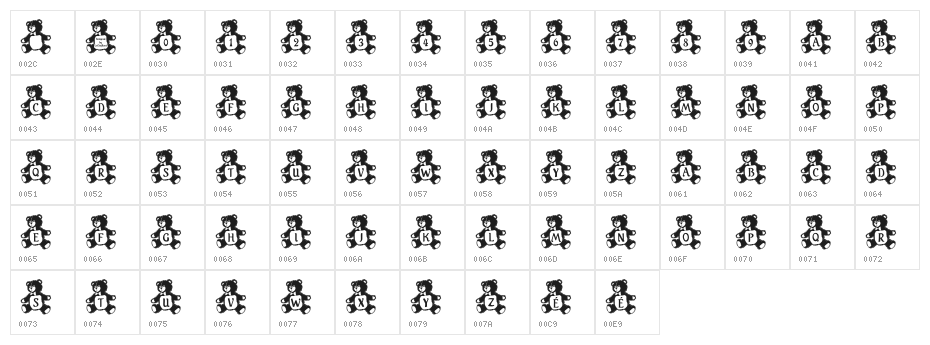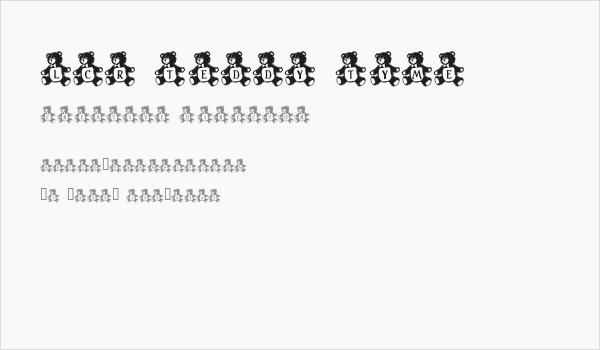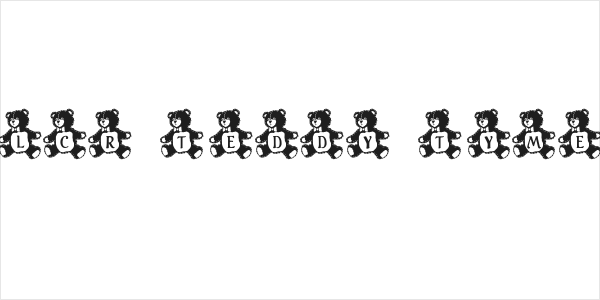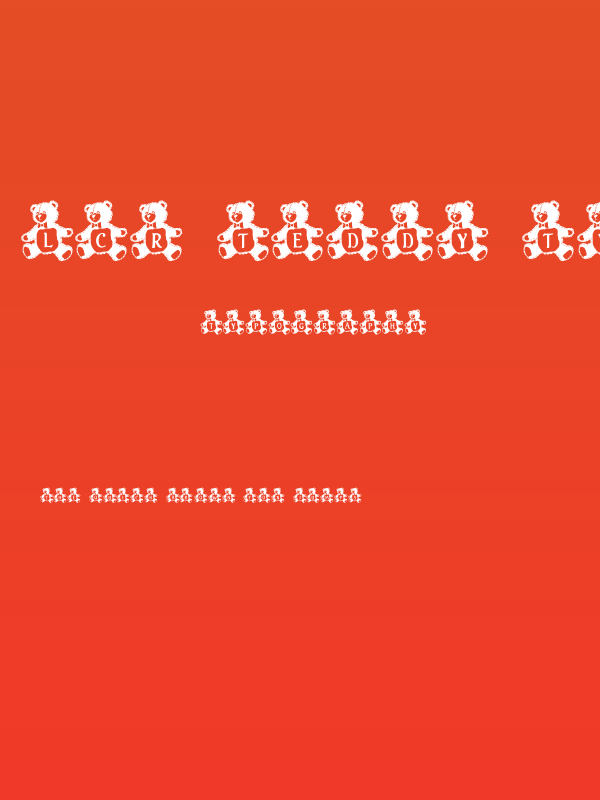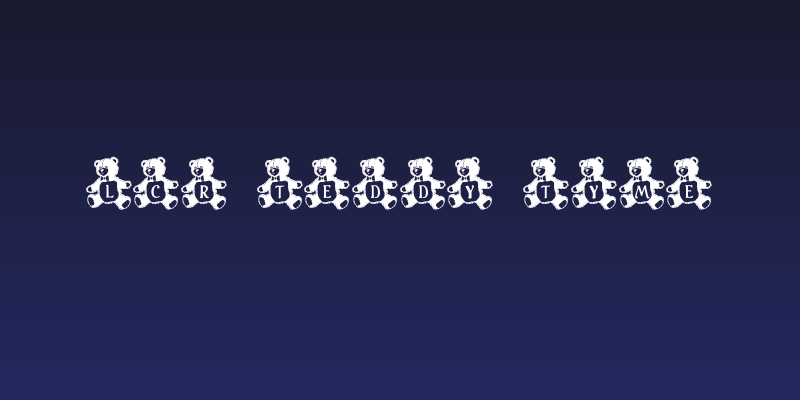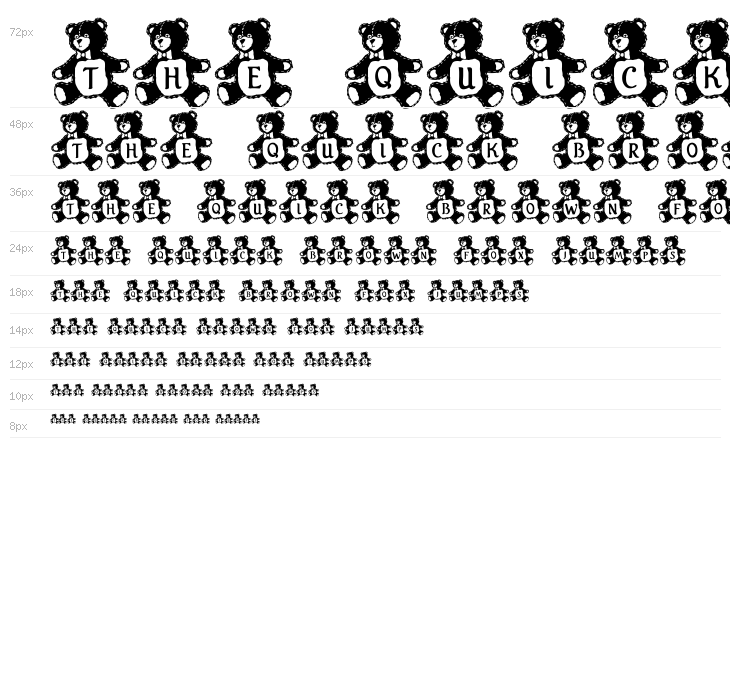
LCR Teddy Tyme Font
LCR Teddy Tyme Description
This playful and whimsical font features each character embedded within a teddy bear design, creating a charming and unique visual appeal. The letters and numbers are bold and clear, making them easily readable despite the decorative bear background. The font is perfect for children's projects, evoking a sense of fun and innocence. Each character is consistently placed within the teddy bear, maintaining uniformity across the alphabet and numbers. The design is both creative and functional, ensuring that the text remains the focal point while adding an element of delight with the teddy bear motif.
Overall StylePlayful, Whimsical
Use CaseHeadlines, Logos, Decorative Text
Proposed ProjectsIdeal for children's books, birthday invitations, toy packaging, and playful branding.